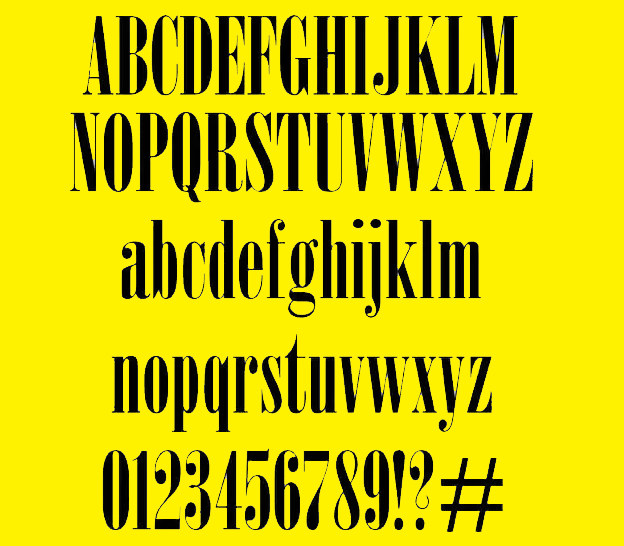
The Nirvana Font is not just a font but a symbol of creativity, rebellion culture, and timeless style. Most popularly used in the logo of Nirvana this font sums up the attitude of the 90s grunge scene as perfectly as the band did with their music.
It is impossible to think of grunge revolution as just a revolution in music; in fact, it was a revolution in culture of the nth degree. This process was based on Nirvana that become one of the most beloved bands of millions of people owing to their shocking sound and rebellious attitudes. As memorable as the songs of Nirvana are the symbols with the unique, nontraditional fonts of the band’s logo.
Well, that’s the idea behind this article: we will start by providing a brief history of the Nirvana Font, look at its most marked aspects, present its current use, and explain how to use it in your designs.
What is the Nirvana Font?
The Nirvana Font means the type of letters that are found in the famous rock band’s symbol. It was derived from Poster Bodoni an old style serif typeface that was designed by Chauncey H. Griffith in 1929. Founder: For headlines and advertising messages, the Poster Bodoni derived from the original Bodoni typeface its style is very thick, slender letters and examples of high contrast thickness.
Nirvana’s version of Poster Bodoni introduced subtle tweaks, giving it a distinctive edge. The result? A typeface that perfectly encapsulates the band’s ethos—gritty, raw, and unapologetically bold.In this years, the Nirvana Font grows to be one of the most iconic font designs that range fans and designers alike.
Features of Nirvana Font
What makes the Nirvana Font so iconic? Let’s break it down:
Elegant Serif Design
The Nirvana Font showcases bold serif letterforms with high-contrast strokes, delivering a mix of strength and sophistication.Retro and Timeless Appeal
Inspired by Poster Bodoni, it blends vintage charm with modern design, ensuring its relevance across eras.Grunge Culture Vibes
Associated with the 1990s grunge movement, it embodies rebellion, nostalgia, and authenticity.Adaptability
Beyond its iconic use in Nirvana’s logo, the font works well for branding, merchandise, and digital projects.
Applications of Nirvana Font
The Nirvana Font’s bold, memorable style lends itself to a variety of creative projects. Here are some popular uses:
- Branding and Logo Design
Perfect for brands aiming for a retro or alternative vibe, the Nirvana Font adds boldness and character to logos and visual identities. - Posters, Album Covers, and Merchandise
Widely used in music-related designs, it enhances album covers, concert posters, T-shirts, mugs, and other fan merchandise. - Social Media Graphics
Ideal for creating bold, nostalgic visuals, the font brings a grunge-inspired edge to social media posts and digital designs. - Fan Projects
From tribute art to custom memorabilia, fans use the Nirvana Font to channel the spirit of the iconic band in their creative works.
The Nirvana Font is more than typeface; it is a social history of a unique American band. sharp, classy, and predominate of something vulgar which is the spirit of Nirvana and grunge. If you are a designer developing a retro product, or a simple enthusiast drawing tribute art, this font is perfect for you.